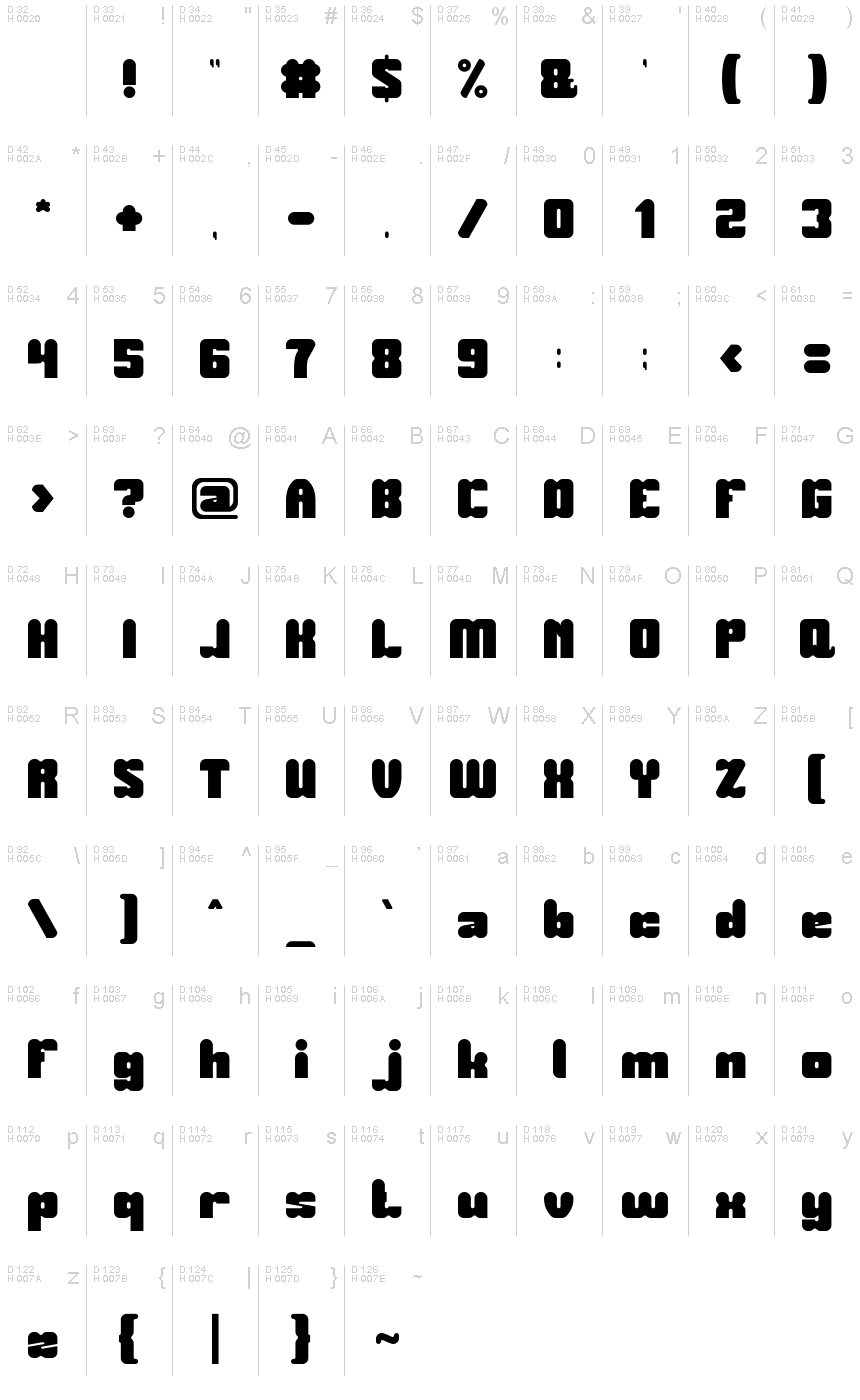
Airplane Snack
Airplane Snack by weknow is a very bold and striking display font. It has playful, fun-loving letters that are good for kids’ brands, packaging or event signs. It is slightly thick bordered, with irregular features which give it uniqueness and make it eye appealing.
From children’s materials to creative advertising and packaging Airplane Snack can be used in variety of applications because of its flexibility. This typeface is bold enough to ensure visibility when used for headlines, logos or big typography hence making it a very good choice. Regardless of whether you are working on a bright poster, cheerful product tag or funny invitation card, using Airplane Snack by weknow will help you achieve this goal while adding an amusing recall.